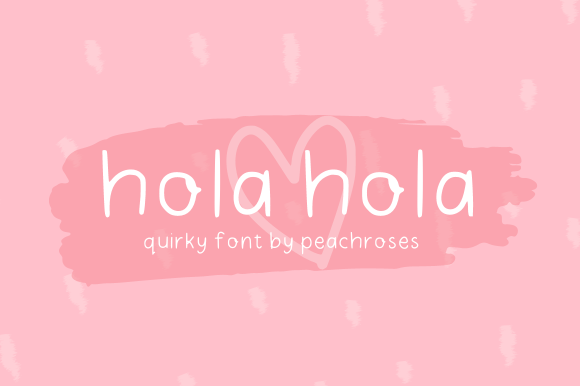
Dive into the captivating world of Hola Hola Font, a meticulously crafted script font family designed to add a touch of charm and authenticity to your creative endeavors. With its enchanting handwritten style, Hola Hola Font exudes a natural and unique flair that transcends the boundaries of ordinary typography. Its strokes dance across the page like a delicate calligraphy, evoking a sense of nostalgia and warmth.
As a font crafted for script tattoos, Hola Hola Font possesses an inherent charm that elevates your designs to new heights. Its organic flow and elegant curves lend themselves perfectly to capturing the essence of personal expression and heartfelt messages. Imagine your words, inked with Hola Hola Font, adorning your skin as a timeless reminder of cherished memories, life-changing moments, or the unwavering bonds of love.
Beyond the realm of tattoos, Hola Hola Font unveils a universe of possibilities for designers and artists. Its versatility knows no bounds, as it seamlessly enhances a wide spectrum of creative projects. Unleash your imagination and let Hola Hola Font grace your invitations, greeting cards, social media graphics, and any other canvas that calls for a touch of handwritten charm.
Hola Hola Font's enchanting aura extends to branding and packaging, where it adds a personal touch that resonates with customers. Its ability to evoke emotions and create a lasting connection makes it an ideal choice for businesses seeking to establish a unique and memorable brand identity. From product labels to packaging designs, Hola Hola Font transforms ordinary products into objects of desire, captivating the hearts and minds of consumers.
Indulge in the beauty of Hola Hola Font and embark on a creative journey where your imagination knows no limits. Let its handwritten strokes dance across your designs, capturing the essence of raw emotions and personal narratives. Whether you're a tattoo artist, designer, or entrepreneur, Hola Hola Font is your gateway to creating extraordinary works that leave an unforgettable impression.